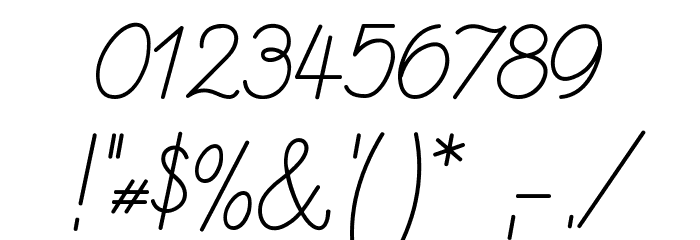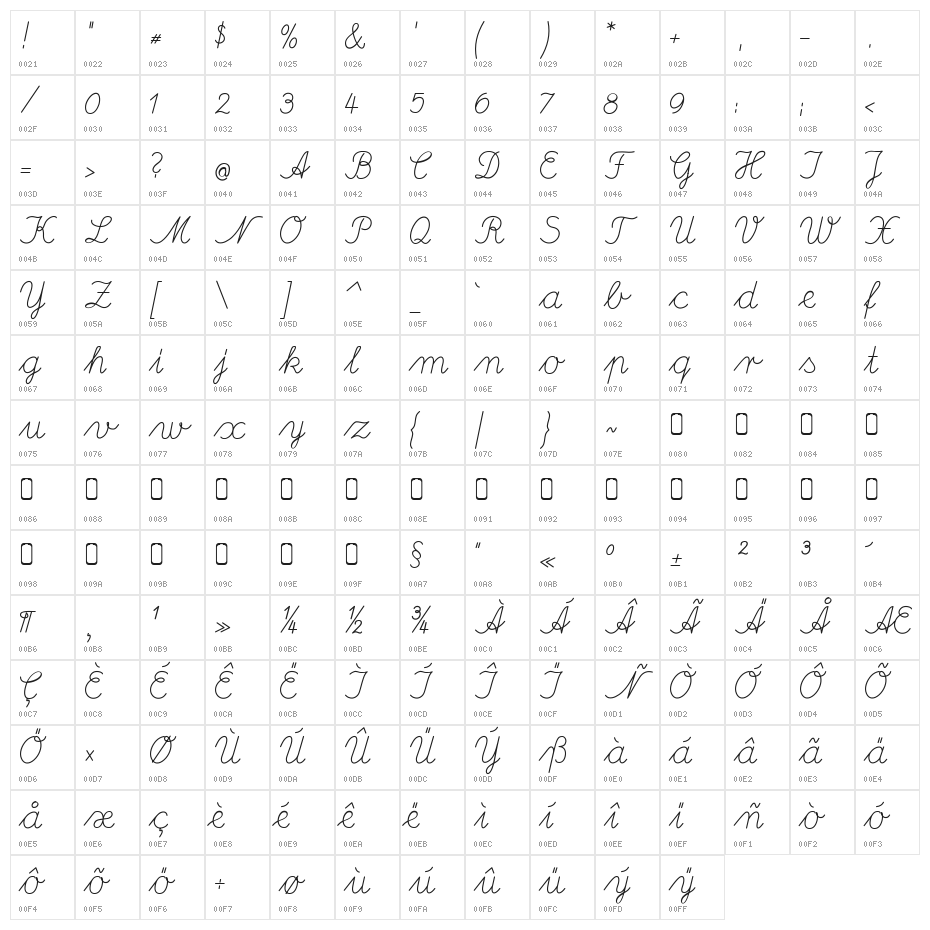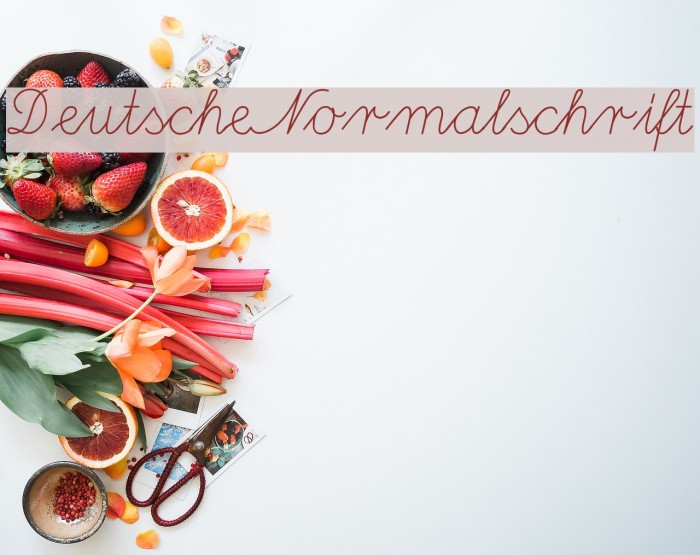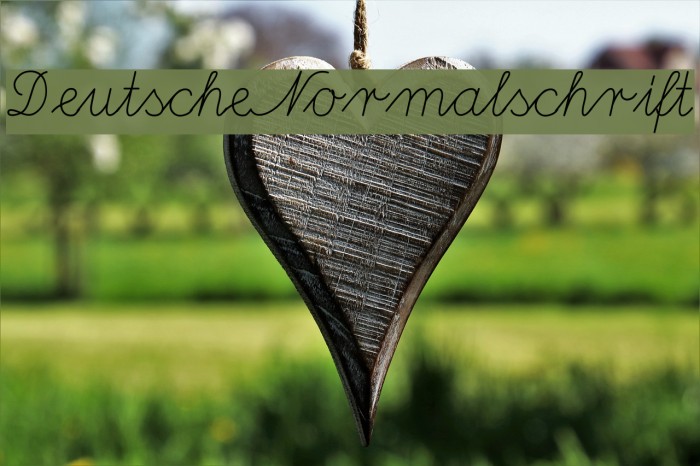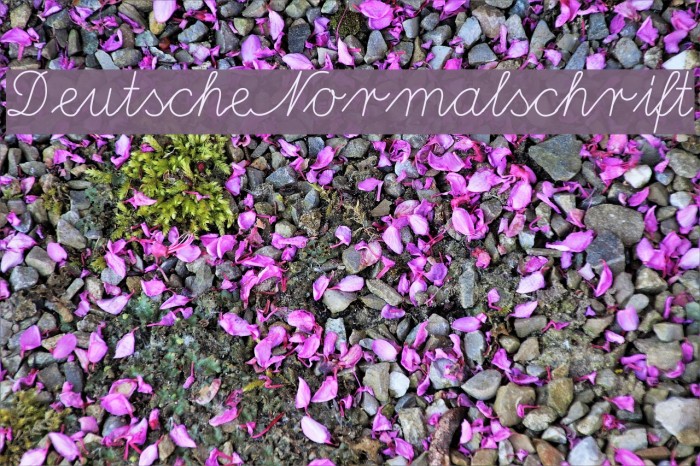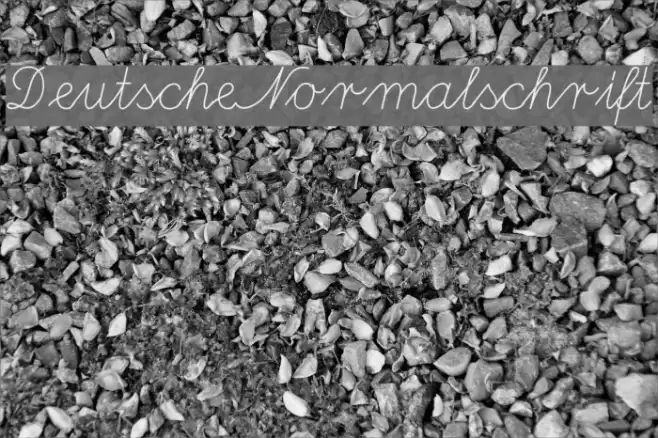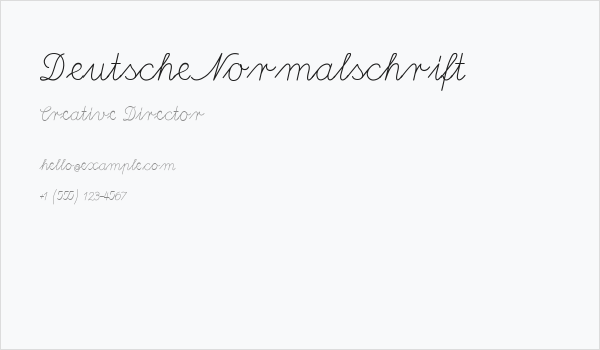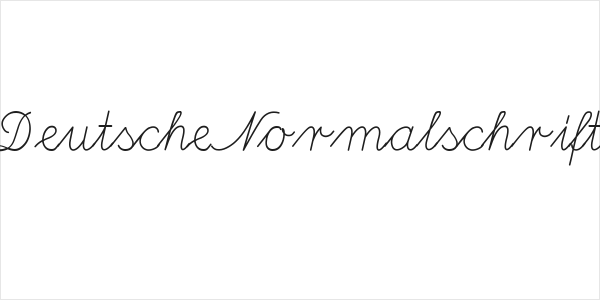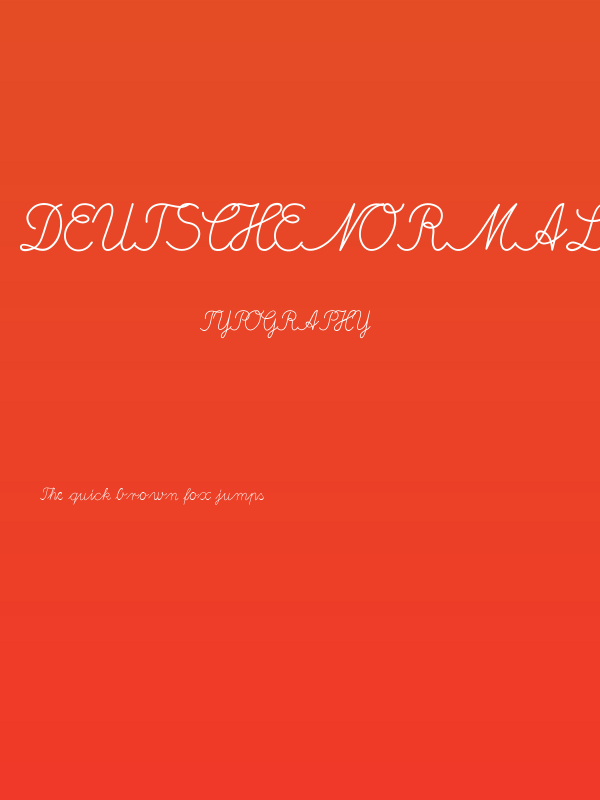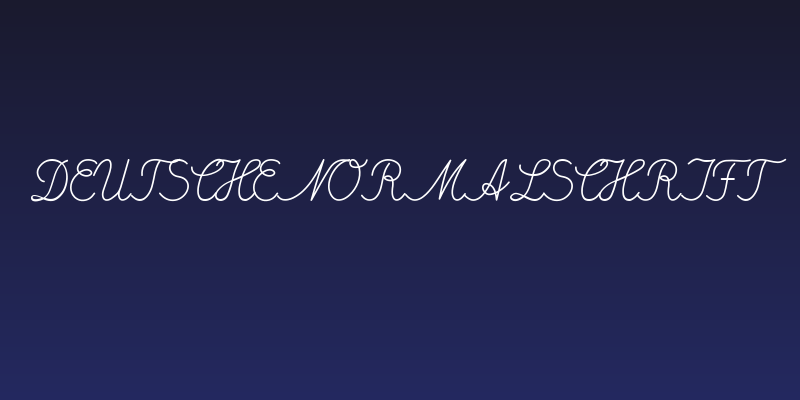
DeutscheNormalschrift Font
DeutscheNormalschrift Description
This font features a classic cursive style with elegant, flowing lines that connect smoothly between characters. The uppercase letters are slightly more embellished, adding a touch of sophistication, while the lowercase letters maintain a consistent, fluid motion. Numbers and special characters are designed to match the overall script style, ensuring a cohesive look. The strokes are uniform in thickness, providing a balanced and harmonious appearance. This font is ideal for projects that require a personal, handwritten touch, such as invitations, greeting cards, or branding materials.
Overall StyleClassic
Use CaseInvitations, Greeting cards, Personal branding
Proposed ProjectsIdeal for invitations, greeting cards, personal branding, and elegant stationery.